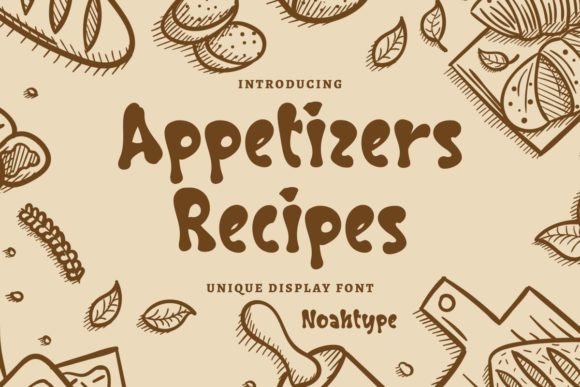
Introduction to Appetizers Recipes Font
Appetizers Recipes is a display font inspired from kitchen and cooking activity , created by NoahType.
This font has cute characters inspired by the appetizer that grabs your attention before eating the main course It would be perfect for many industries, such as accessories, advertising, bakery and pastry, café, event or festival, fashion, handicrafts, homeware, perfume, printing, publishing, restaurant, and more.